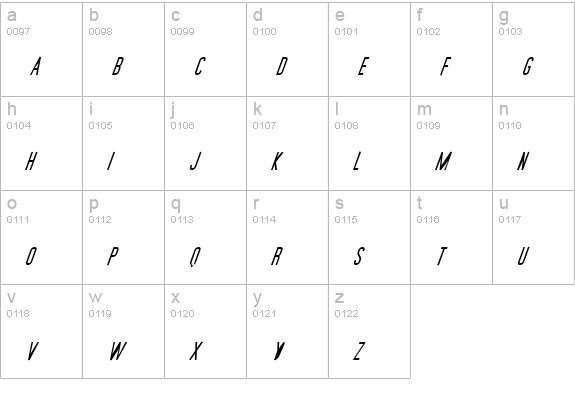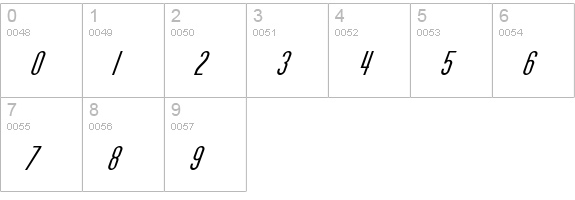
Movie Poster Italic is a distinctive, italic variant in the Movie typeface family \xE2\x80\x94 well suited to design and typography projects.
Introducing Movie Poster Italic font, a bold and dynamic typeface that exudes a sense of drama and excitement. This striking font is perfect for capturing attention and making a statement. Its sleek and stylish design is sure to elevate any project, whether it be movie posters, book covers, or event invitations. The Movie Poster Italic font is not only visually appealing but also versatile, making it suitable for a wide range of design purposes. Its italicized style adds a touch of elegance and flair, while its clean lines and sharp angles give it a modern edge. Best of all, Movie Poster Italic font is completely free to download at FontsMarket.com. Now you can add this eye-catching font to your collection without spending a dime. Don't miss out on the opportunity to enhance your designs with this stunning font - download Movie Poster Italic today!